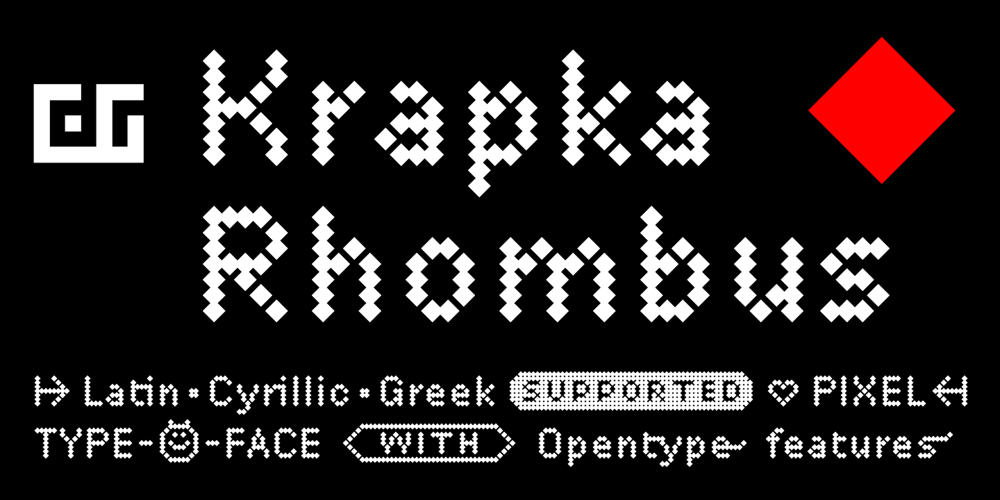
DR Krapka Rhombus Font Family was designed by Dmitry Rastvortsev and published by Dmitry Rastvortsev. DR Krapka Rhombus contains 19 styles and family package options. In the DR Krapka Rhombus typefamily, the pixel has a rhombus shape. The font supports OpenType features and contains small capitals, ligatures, oldstyle figures, terminal forms, historical forms, stylistic sets. The dingbats, arrows, emoji are also present. For small texts, it is recommended to use DR Krapka Rhombus-FontSize10px in the font size 10 px.DR Krapka Square typefamily supported European languages based on Latin, Cyrillic and Greek scripts.